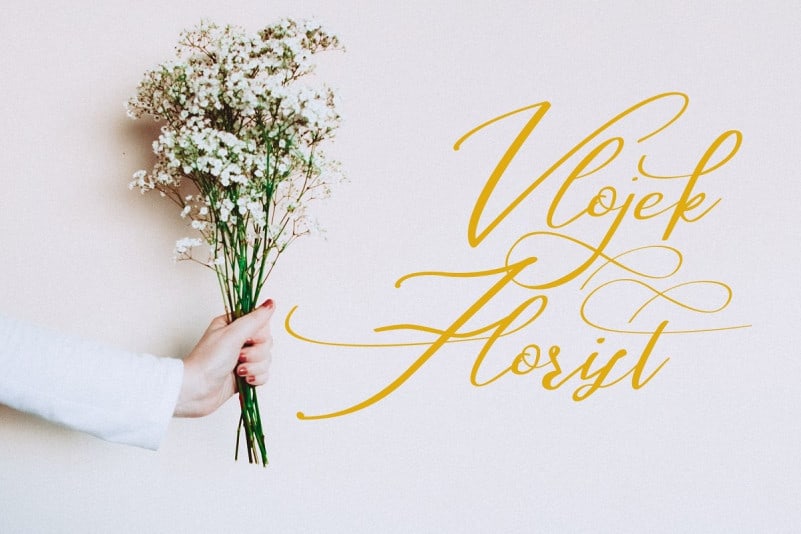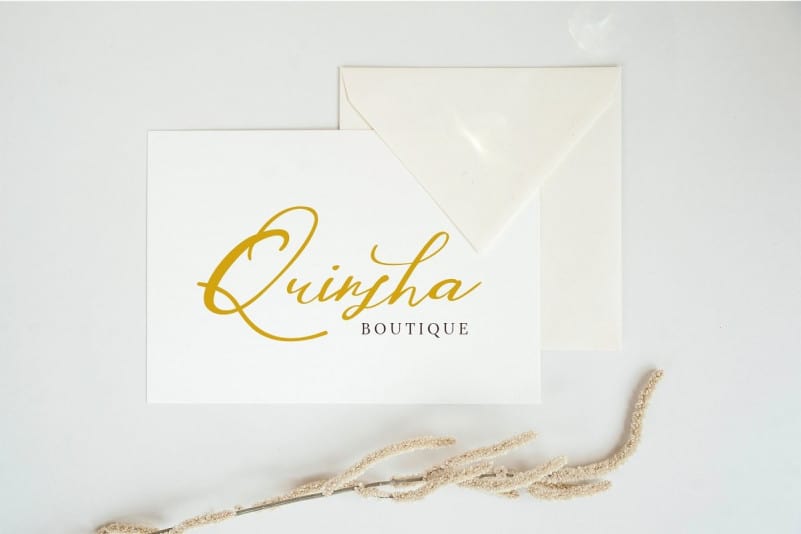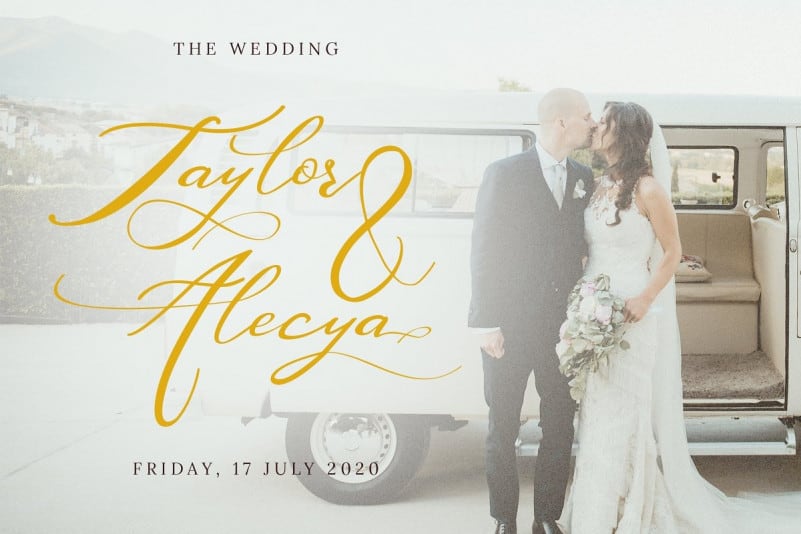
Washingtone Calligraphy Font
Washingtone Calligraphy Font is inspired by classic typography and brings its own unique style to any design project. This typeface is designed and shared by Masdika Studio. A Beautiful and classy script that has many alternates style. The natural hand writren is suitable for you who needs a typeface for headline, logotype, apparel, invitation, branding, packaging, advertising etc.